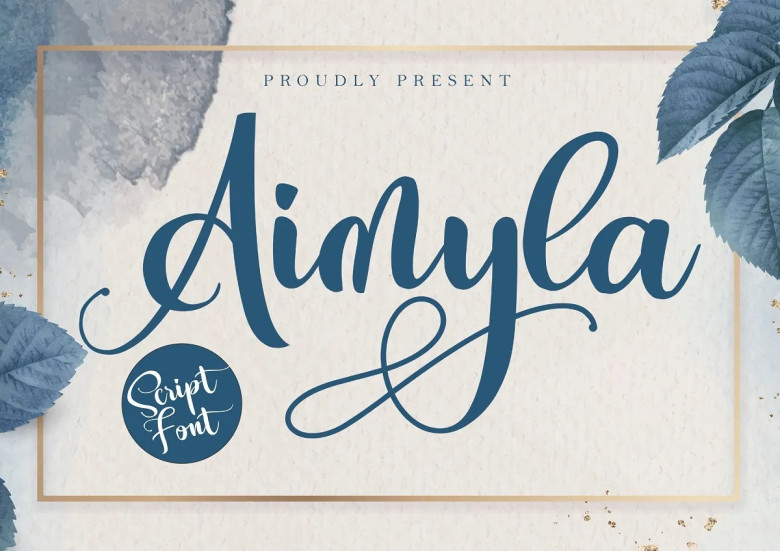
Aimyla Font
Aimyla offers a unique modern calligraphy style. Use it for quotes, websites and other elements; additional clipart can also help improve the design process. Aimyla features numerous ligatures to give designs an authentic handwritten feel.
Aimyla Calligraphy Script Font